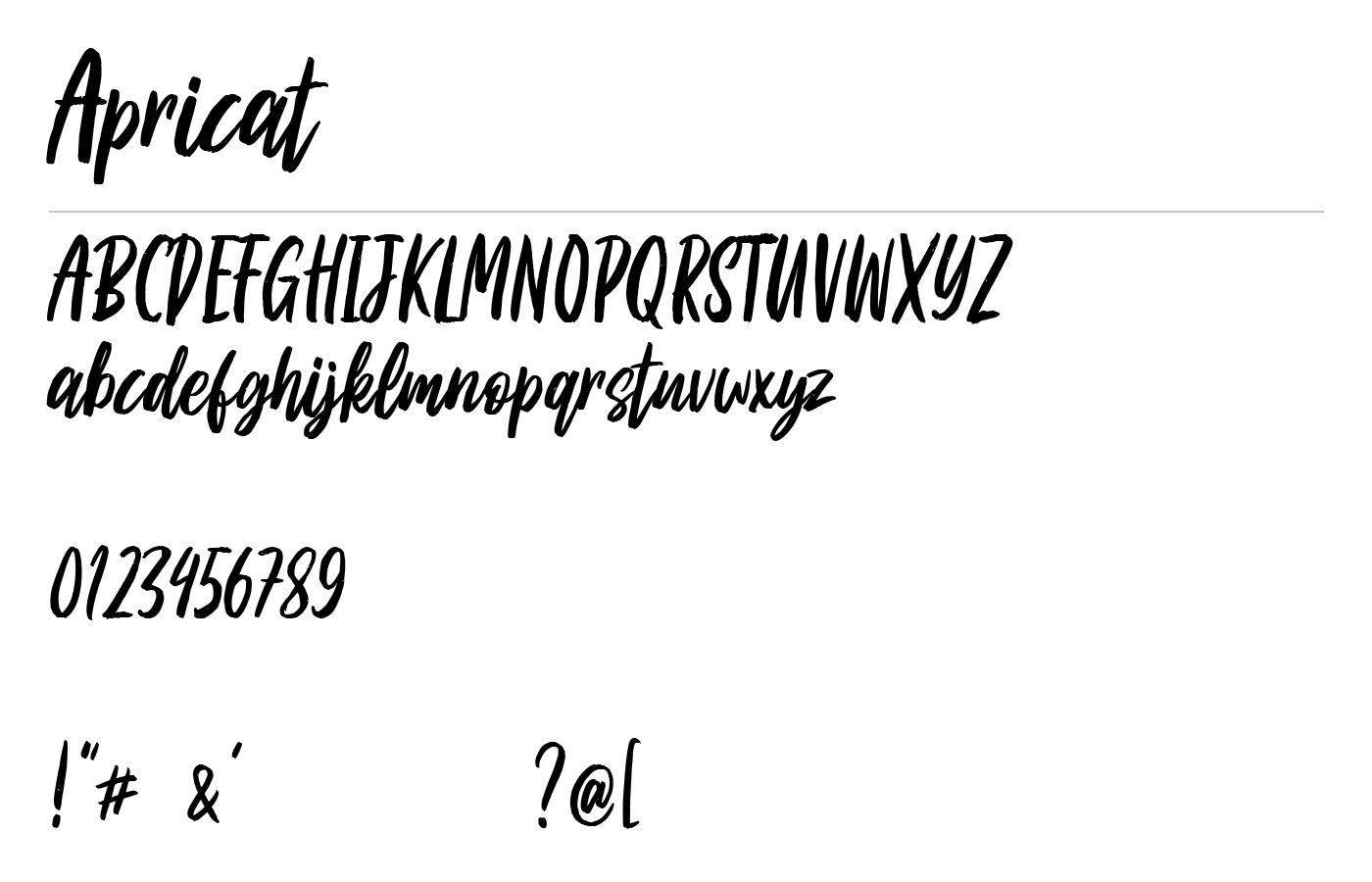
Apricat is a lively handwritten script font featuring a bold, brush-like texture with a slightly condensed, tall letterform that adds a dynamic and personal touch. Its playful yet confident style makes it perfect for creative branding, casual invitations, and eye-catching headlines where a warm and energetic feel is desired. This font brings an approachable, artistic vibe ideal for projects seeking a friendly, handcrafted look.
Apricat Font
About Apricat Font